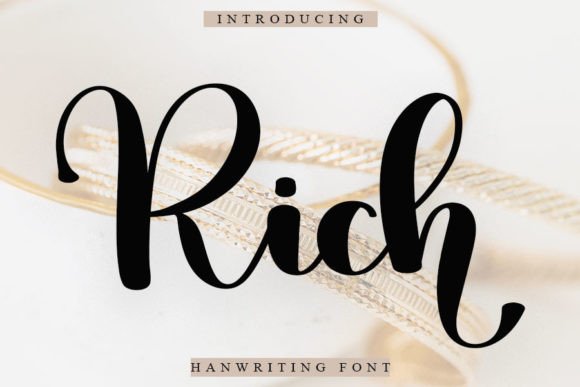
In a world of intricate ligatures and swirling serifs, the Rich Font family emerges as an enchanting symphony of simplicity and elegance. Its characters, like nimble dancers, pirouette gracefully along the baseline, creating a visual harmony that captivates the eye. Born from the creative forge of Harlek Studio, Rich Font is a testament to the power of minimalism, blending classic beauty with a modern edge.
Crafted with the utmost care and attention to detail, Rich Font's delicate strokes evoke a sense of intimacy and warmth, inviting you to explore the depths of your creativity. Each letterform, meticulously shaped and refined, carries a story of its own, waiting to be discovered. Whether you're a seasoned designer or just starting your artistic journey, Rich Font will become your trusted companion, guiding you along the path of visual storytelling.
Step into a realm where simplicity reigns supreme, where the unadorned beauty of Rich Font takes center stage. Let your imagination run wild as you create stunning logos that exude sophistication, eye-catching social media graphics that demand attention, or heartfelt invitations that touch the soul. With Rich Font as your ally, ordinary words transform into works of art, captivating your audience and leaving a lasting impression.
From the delicate curves of its lowercase letters to the bold strokes of its capitals, Rich Font exudes a timeless elegance that transcends trends. Its versatility knows no bounds, seamlessly adapting to a myriad of design styles and projects. Whether you seek to create a vintage-inspired poster, a modern website, or an unforgettable branding identity, Rich Font will rise to the occasion, adding a touch of magic to every endeavor.
But Rich Font is more than just a collection of letters and symbols. It's an invitation to slow down, to appreciate the beauty in simplicity, to savor the moment. In a world often cluttered with noise and distraction, Rich Font offers a sanctuary of serenity, a place where creativity can flourish and ideas can take flight. Embrace the tranquility of Rich Font, let its gentle strokes soothe your soul, and watch as your designs blossom into masterpieces.